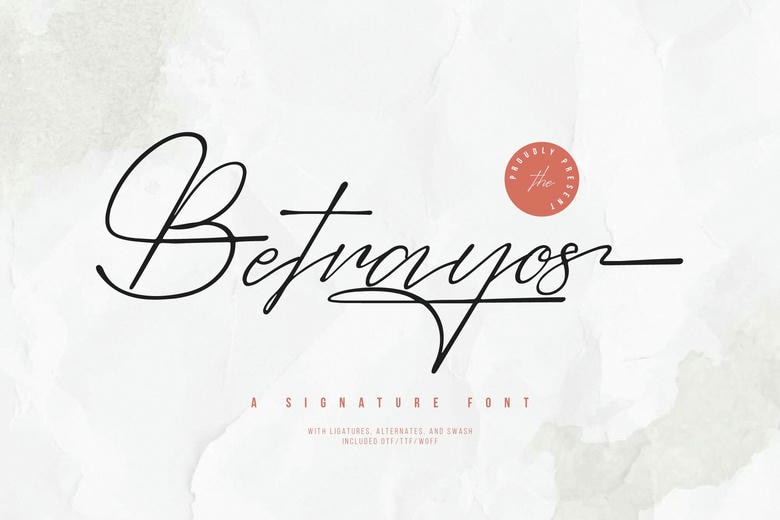
Betrayos Font
Betrayos is an elegant signature font that looks like beautiful handwriting. It has smooth curves and a stylish flow, making it perfect for adding a personal touch to invitations, cards, or any creative project.
Betrayos Signature Script Font